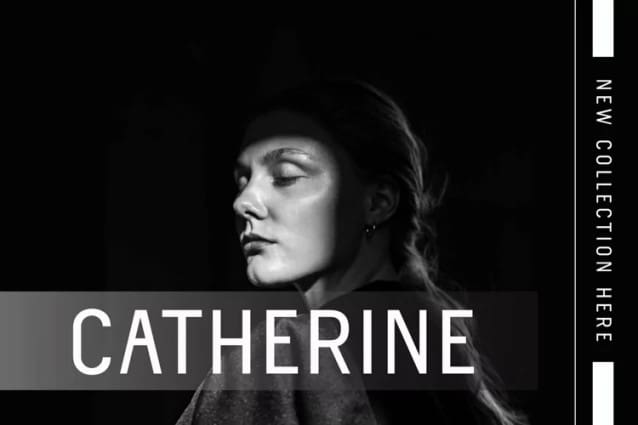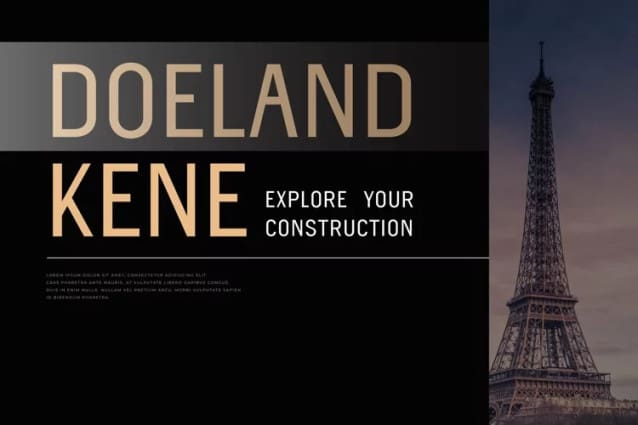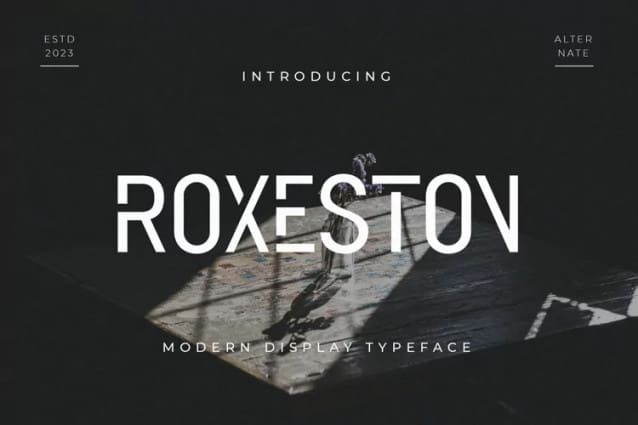
Roxeston Font
Roxeston Font – Modern Sans Serif Font, In accordance with market demand, we have decided to create a serif font that brings a modern feel with a bold and authentic look, which is expected to become a market favorite. We keep this font looking elegant, classy, ​​easy to read, stylish, attractive and easy to use. ROXESTON Font is a great choice for logo branding, Template Design, esports, books, branding, brands, quotes, album covers and more. ROXESTON Font is here to take your designs to the next level.